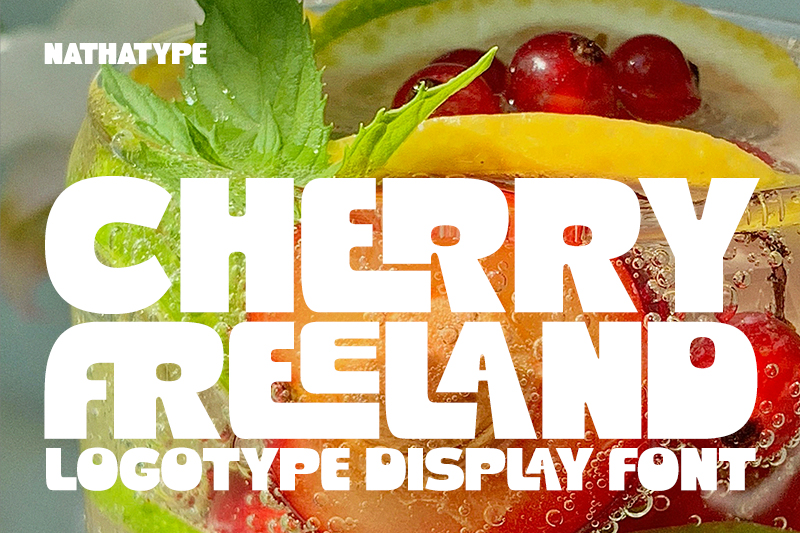
Playful bold display fonts present the perfect combination between visual strengths and a vibrant feel in a colorful and characterful design world. With bold letters, chunky proportions, and cheerful expression, this font style is able to immediately steal attention at first sight.
In the development of modern typography, playful bold display fonts have become more popular for their ability to convey a strong, pleasant character. The popularity of playful bold display fonts continues to grow due to their versatility across branding applications. Examples include food and beverage packaging, event posters, and children’s brands. This font style consistently creates a fun, undeniable feeling.
This article will discuss playful bold display fonts, their visual character, and the best font recommendations that you can use to strengthen your creative project.
Playful bold display fonts have a standout visual strength because of their bold and solid form, making the text appear full, confident, and bold. This character makes it highly effective for high-appeal designs like festival posters, large discount promotions, and snack and sweet drink packaging.
Besides its bold character, this font has thick, rounded proportions, creating a soft and friendly impression without appearing stiff. Its playful and expressive personality exudes a cheerful, warm, and welcoming atmosphere, making designs feel more alive and easily connected with the audience.
Therefore, playful bold display fonts are suitable for headline designs or branding that want to look fun, strong, and easy to memorize. Each curve and proportion creates a vibrant and dynamic visual impression without feeling overdone. It’s no wonder that playful bold display fonts are often the first choice for designers when creating a bold visual identity that still feels friendly and approachable.
Here are some recommendations for playful bold display fonts with bold and fun characters that you can consider when creating creative projects:
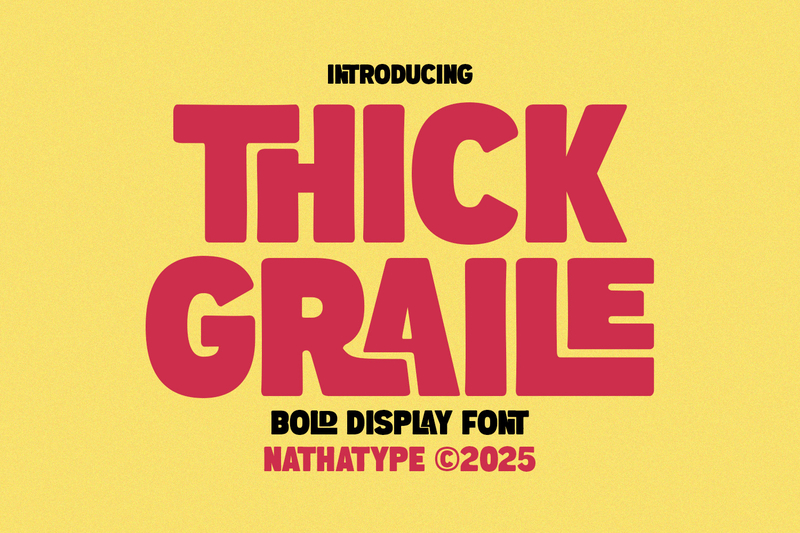
Thick Graile is one of playful bold display fonts with a strong and powerful character. It has a bold, rounded, and thick-proportioned uppercase, exuding a confident and cheerful feel. In addition, this font’s smooth and clean outline gives a detailed outcome both in printed and digital media.
Complete with ligatures for smoother letter transitions, this font is ideal for use on food and beverage packaging, event posters, and even children’s brands that want to appear bold, fun, and memorable.
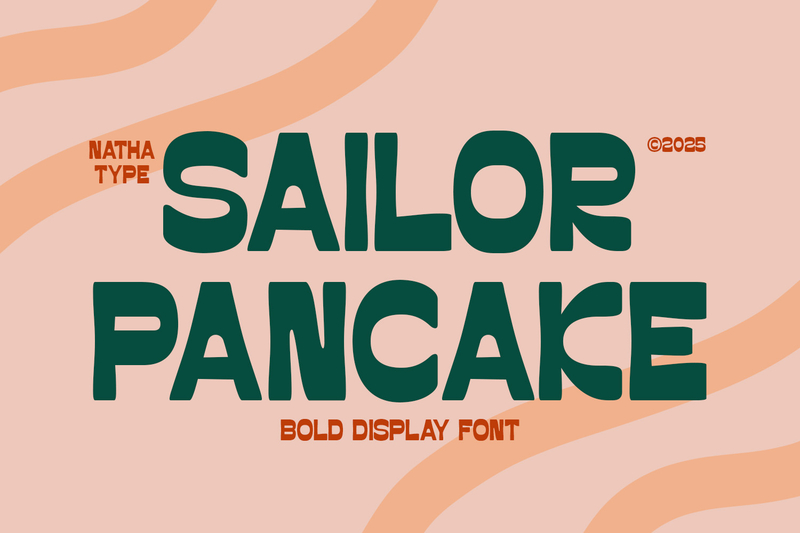
With a bold letterform and solid proportion, Sailor Pancake provides a strong character yet still feels warm and friendly. This font features a dynamic curve with a lively thick-thin contrast, supported by clear edges and smooth corners, creating a playful and powerful look. Moreover, it features ligatures for variations in specific letter combinations to create a neater and more harmonious appearance. Therefore, it is suitable for food branding, packaging, posters, and creative projects requiring bold, fun, and professional typography.
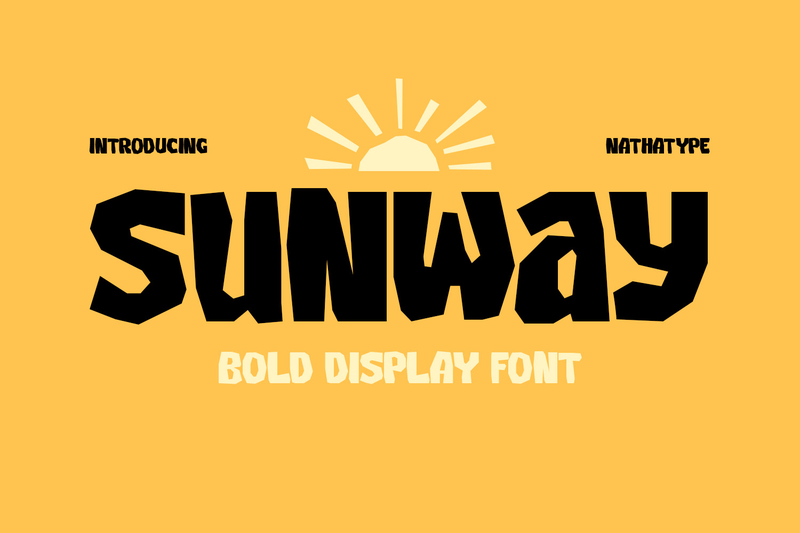
Sunway is one of playful bold display fonts with modern and distinctive characteristics. It offers a blend of strong but broken curves and powerful shapes. The unique corner of this font presents a firm geometric touch with a dynamic cut, creating a strong yet friendly look.
Moreover, these characteristics make Sunway ideal for food and beverage packaging—such as snacks, trendy drinks, and dessert brands—as well as event posters and kids’ brands that seek cheerful and bold typography. It equips alternates and ligatures that provide variations of expressive letterforms with neat, flexible, and striking results.
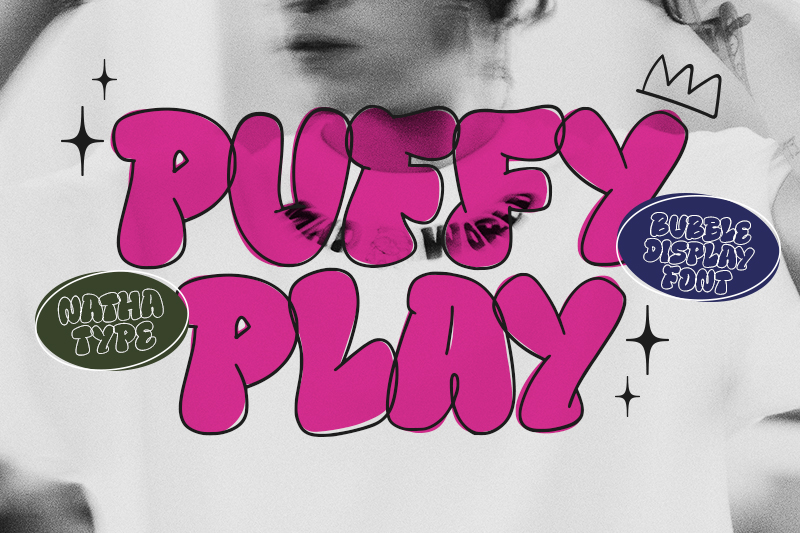
Like its name, Puffy Play has a fluffy, soft, and cheerful balloon-like character. With its bold weight, rounded bubble-style letterforms, and low contrast, this font displays the characteristics of the playful bold display fonts, which are friendly and eye-catching. The added outline adds dimension, making each letter appear more vibrant and stand out.
Furthermore, this font has a contextual alternates feature that can adjust character shape automatically to make letter transitions feel more natural and harmonious. Therefore, Puffy Play is perfect for kids’ brands, sweets packaging, and playful event posters.
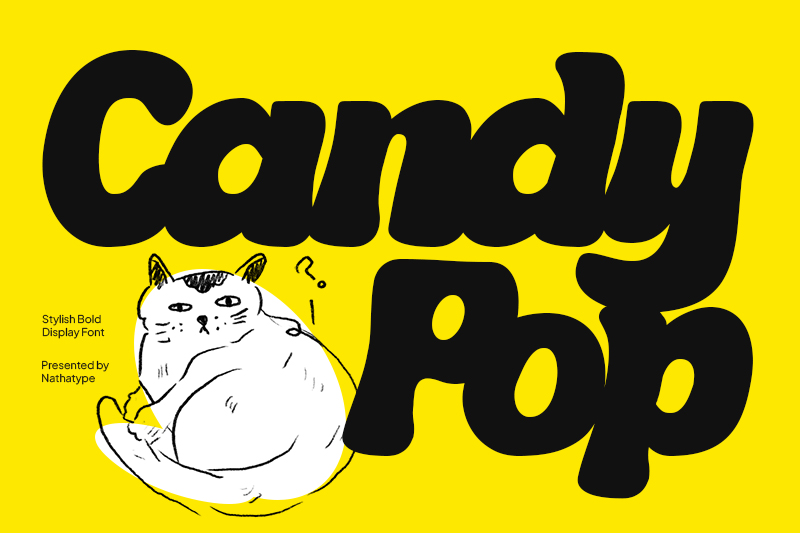
Presenting an attractive bold look, Candy Pop is one of the playful bold display fonts with strong and powerful character. The thick letter structure makes each character stand out, while the low contrast maintains its smooth and cohesive look.
Additionally, the balance in Candy Pop maximizes its appearance in large sizes without looking overdone. With its playful and expressive contemporary style, this font is ideal for food and beverage packaging, event posters, and kids’ brands that need eye-catching and bold typography.
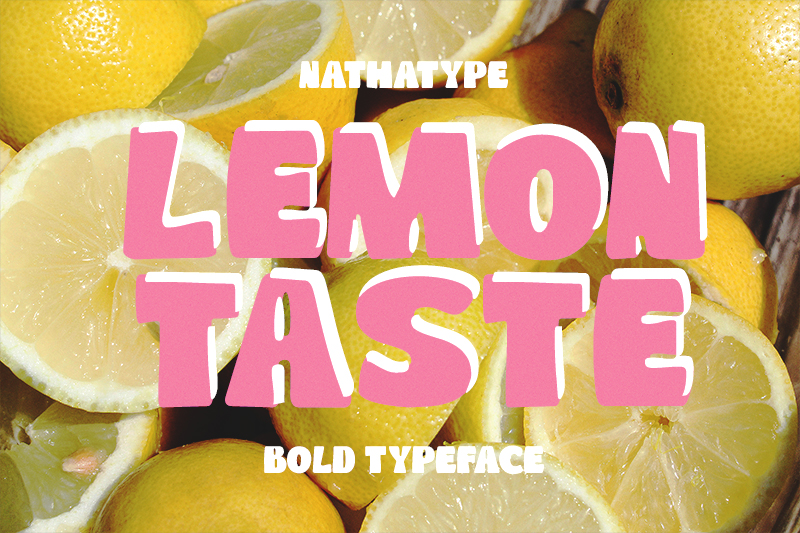
If you want your designs to look vibrant and memorable, this is the time to consider playful bold display fonts as the main element in your creative projects. Make your designs look stronger and more characterized through the font’s flexibility and high appeal. With the attractive characteristics, playful bold display fonts will be a favorite and long-lasting choice in the modern design world.